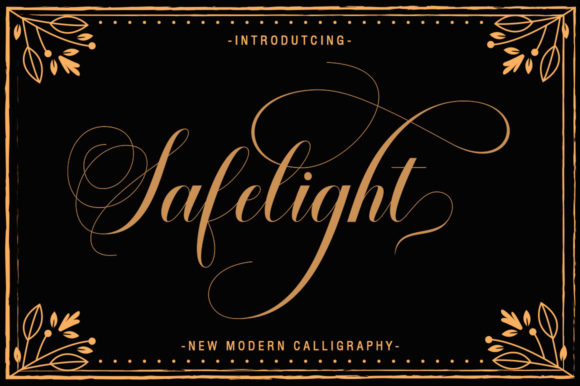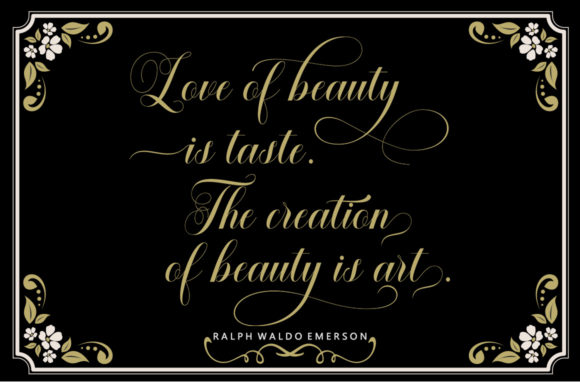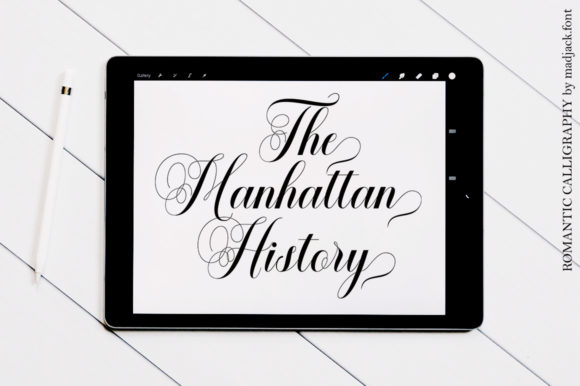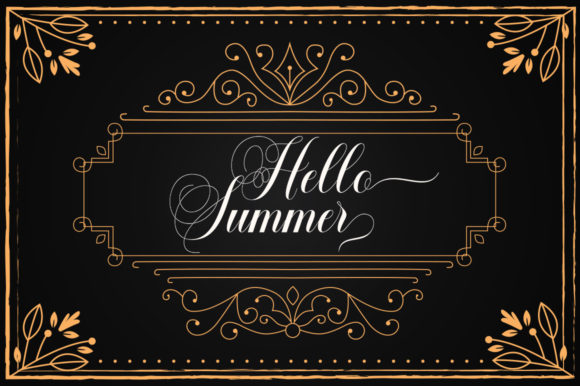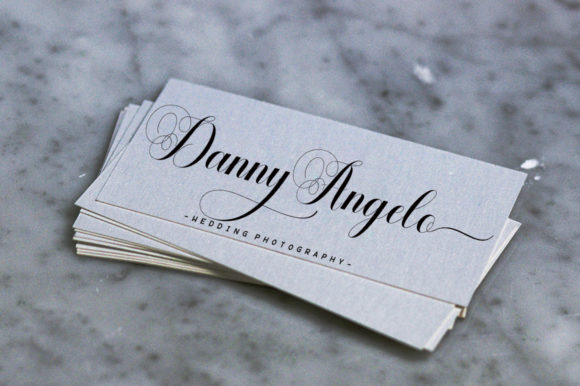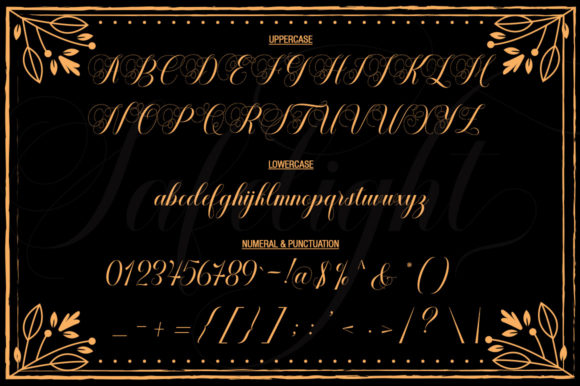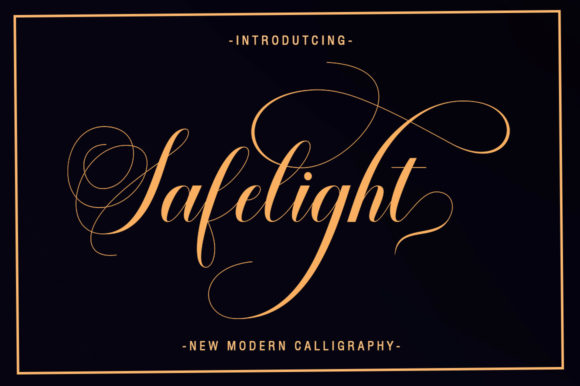
Safelight Font
About Safelight Font
Safelight pays homage to classic calligraphy in an unexpected and original way. Get inspired by this timeless classic.